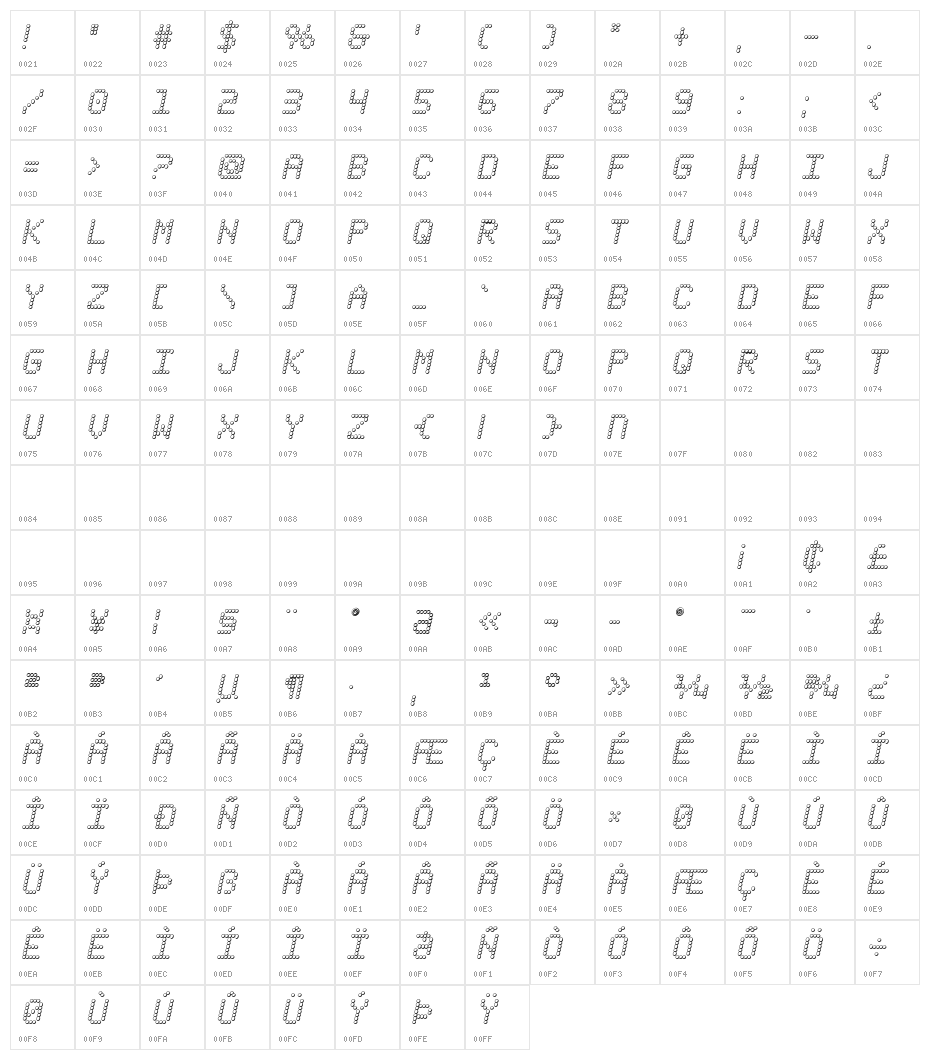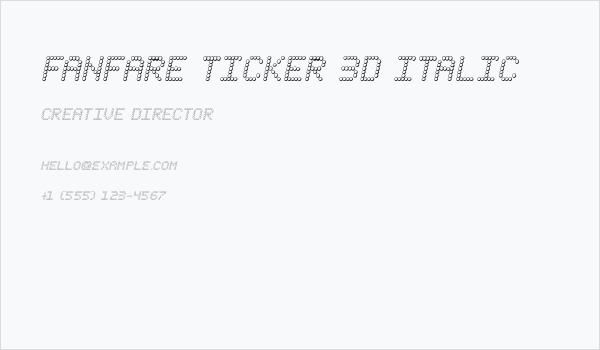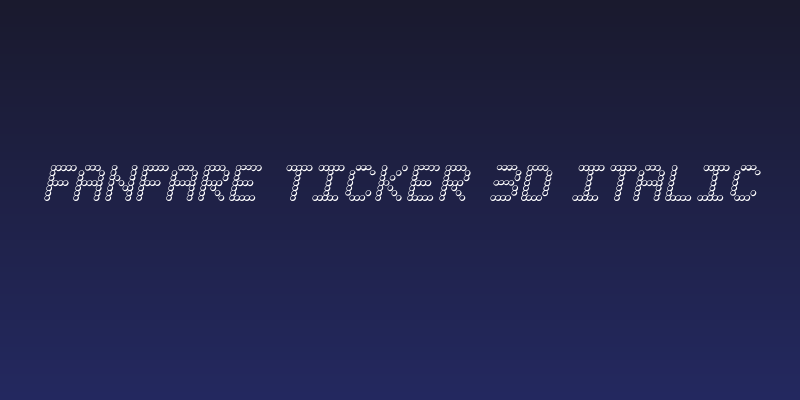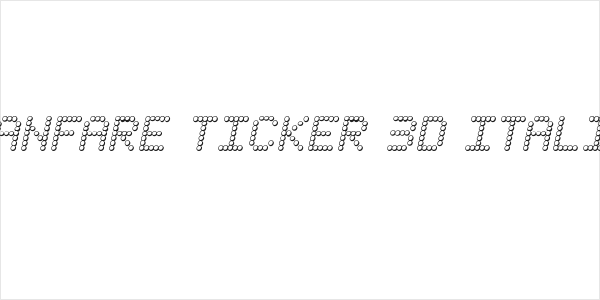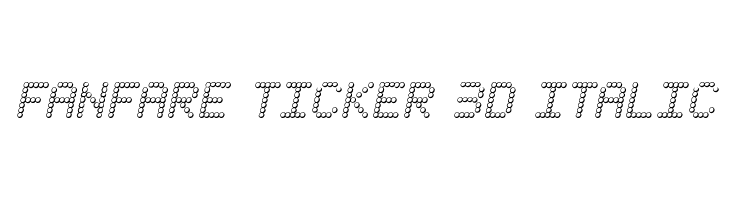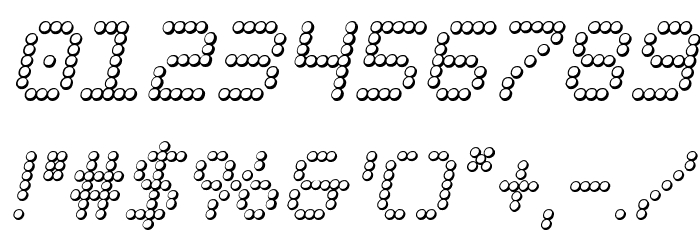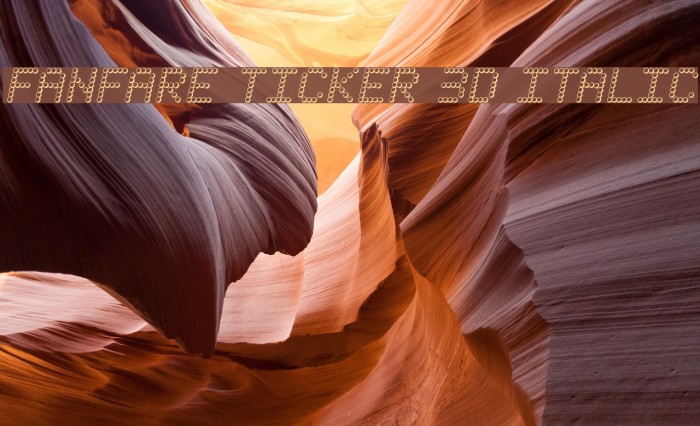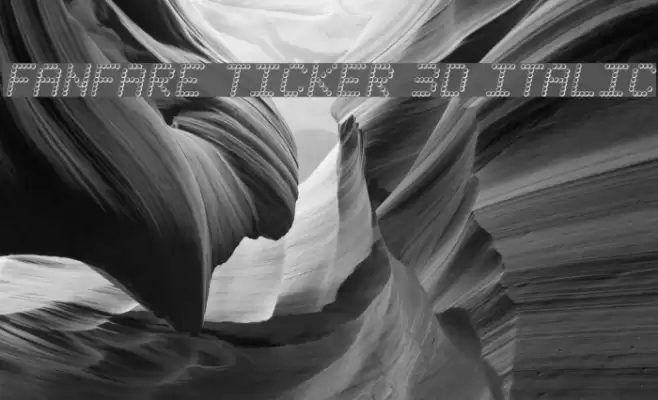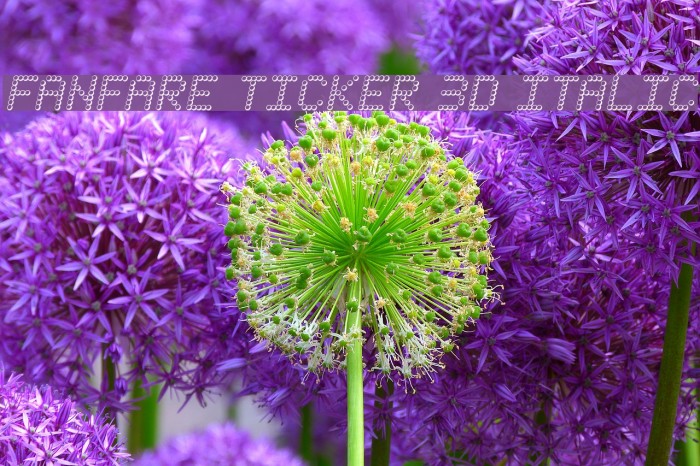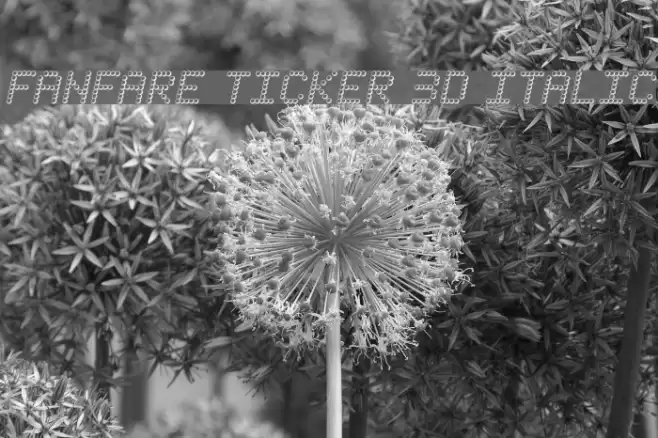
Fanfare Ticker 3D Italic Font
Fanfare Ticker 3D Italic Description
This font features a unique 3D dotted design that mimics the appearance of a digital ticker display. Each character is composed of small, evenly spaced circles, creating a sense of depth and dimension. The italic style adds a dynamic, forward-leaning aspect to the characters, enhancing their modern and futuristic appeal. The uppercase and lowercase letters, along with numbers and special characters, maintain a consistent structure, making the font highly legible despite its decorative nature. This font is ideal for projects that require a digital or technological theme, offering a playful yet sophisticated aesthetic.
| Proposed Projects | Ideal for digital displays, tech-themed posters, modern advertisements, and creative branding projects. |